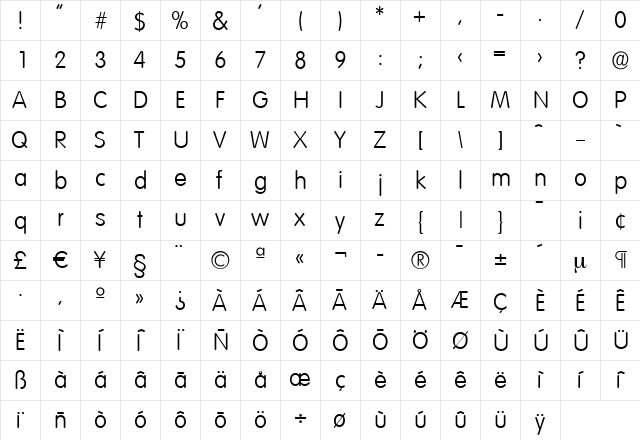
RolandBecker-Light Regular
Design Context for RolandBecker-Light Typeface
RolandBecker-Light is a composed and adaptable typeface that performs quietly and consistently across a wide range of design contexts. Its slender proportions lend an understated elegance to any composition.